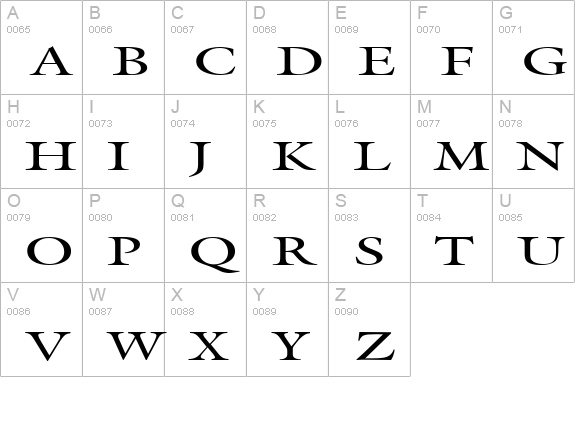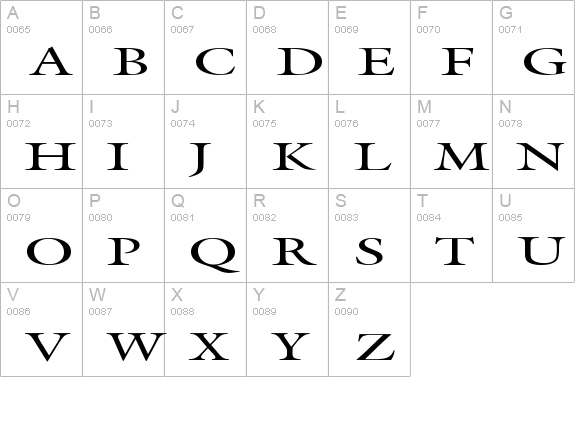
Galant Extended Normal Font Details
Galant Extended Normal is the standard, neutral, extended-width variant in the Galant typeface family \xE2\x80\x94 well suited to general body text, paragraphs, and standard typographic work.
The Galant Extended Normal font is a versatile and stylish typeface that is sure to make a bold statement in any design project. With its clean lines and elegant curves, this font exudes sophistication and professionalism. Its extended width adds a touch of uniqueness, making it stand out from the crowd. This font is perfect for a variety of applications, whether it's for branding, advertising, or creating eye-catching headlines. Its legibility makes it easy to read even in small sizes, while its boldness ensures maximum impact. One of the best things about the Galant Extended Normal font is that it is available for free. That's right, you can download this amazing font without spending a dime. Simply head over to FontsMarket.com, and you'll have access to this font and many other incredible options. Don't miss out on the opportunity to enhance your designs with the Galant Extended Normal font. Download it today and take your projects to the next level.